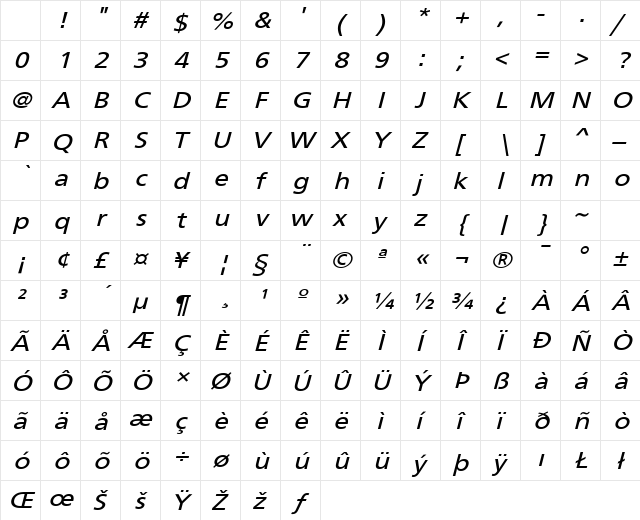
Complete Frutiger Extra Oblique glyph index. Displaying only characters natively supported by Frutiger Extra Oblique font.
Frutiger Extra is a composed and adaptable typeface that performs quietly and consistently across a wide range of design contexts. The slanted form adds forward momentum and visual energy.
Pro Tip: Use Frutiger Extra for emphasis, pull quotes, and subheadings where its slanted energy can add rhythm to the layout.